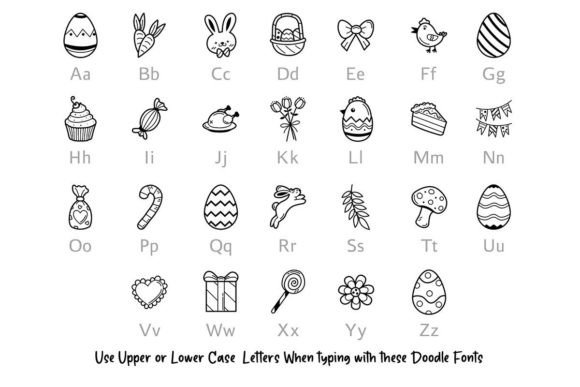
About Easter Doodle Font
Easter Doodle is a delightful and modern dingbats font that adds a playful touch to your designs. With its lightweight style, this font is well-suited for both traditional media and digital platforms, making it a versatile choice for various projects. Whether you’re a crafter or a graphic artist, Easter Doodle offers a wide range of whimsical symbols and icons that can add charm and creativity to your work.
The playful nature of Easter Doodle makes it a perfect fit for creative projects. Whether you’re designing an inspirational diary, creating playful illustrations, or adding decorative elements to your report, this font can enhance the visual appeal and inject a sense of fun into your work. The variety of doodles and icons available in Easter Doodle allows you to experiment and create unique compositions that reflect your personal style.
The compatibility of Easter Doodle with popular design tools like Photoshop or Illustrator makes it easy to incorporate these playful doodles into your designs. You can effortlessly mix and match the symbols to create custom illustrations, decorate your artwork, or add visual interest to your social media posts and website.
Crafters will particularly appreciate the versatility of Easter Doodle. From handmade cards and scrapbooking projects to DIY crafts and home decor, this font offers a wide array of elements that can be used to embellish and personalize your creations. The whimsical and modern style of Easter Doodle adds a touch of lightheartedness and creativity to your craft projects.
Whether you’re creating Easter-themed designs, adding playful touches to children’s materials, or simply looking for a font that exudes a fun and modern vibe, Easter Doodle is a great choice. Its collection of doodles and icons allows you to infuse your designs with character and playfulness.
In conclusion, Easter Doodle is a playful and modern dingbats font that brings a sense of fun and creativity to your designs. With its lightweight style and compatibility with design tools, it offers a wide range of doodles and icons that can be used in various projects. Let Easter Doodle be your go-to font for adding a touch of whimsy to your crafts, graphics, and more.